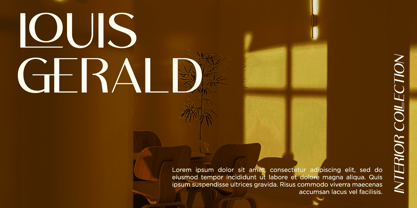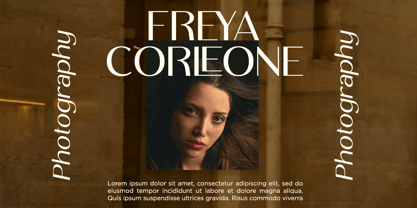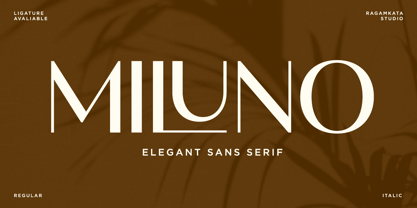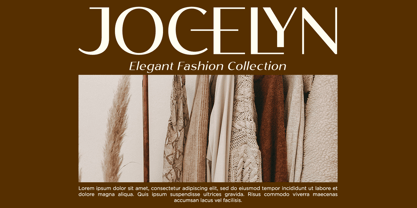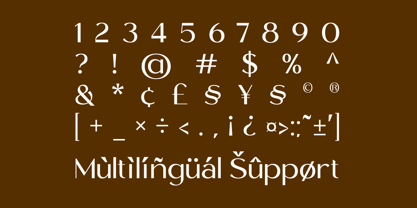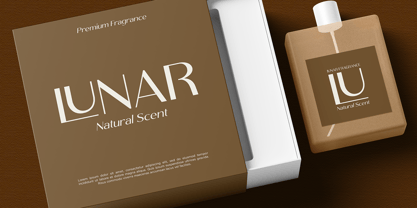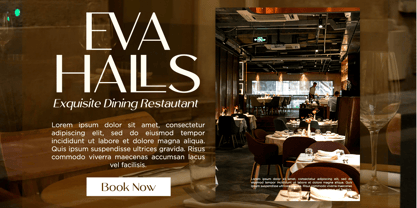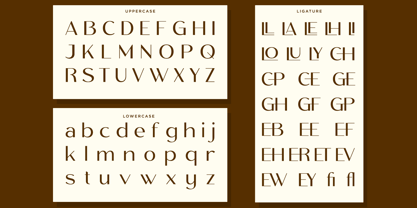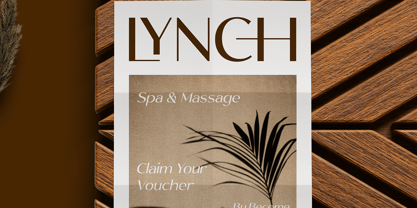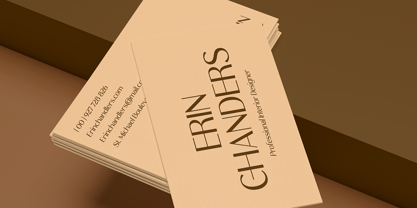
Miluno
by RagamKata
The Miluno Font Family was designed by Yogiswhara Dio Prakoso Riadi and published by RagamKata. Miluno contains 2 styles and family package options. More about this family
Miluno is an elegant modern sans serif typeface that brings clarity, sophistication, and refined simplicity to contemporary visual communication. With its clean geometry, balanced proportions, and smooth curves, Miluno offers a sleek and polished appearance that feels both modern and timeless. The subtle elegance of each letterform allows for breathing space, creating a harmonious rhythm that enhances readability while maintaining a strong visual impact. Designed for branding designers, creative studios, content creators, and marketing teams, Miluno serves as a versatile typographic solution for a wide array of creative needs. It is perfect for logos, branding systems, editorial layouts, website design, packaging, advertising, and social media content. This typeface adapts seamlessly across both digital and print applications, ensuring consistent visual performance in every project. Whether utilized for luxury branding, corporate identity, fashion campaigns, lifestyle editorials, or minimalist design projects, Miluno elevates visual storytelling with its refined character and modern elegance. Tailored to support professional creativity, this font delivers a confident, clean, and premium look that strengthens brand presence and enhances overall design quality. Thank You! Ragamkata
Designers: Yogiswhara Dio Prakoso Riadi
Foundry: RagamKata